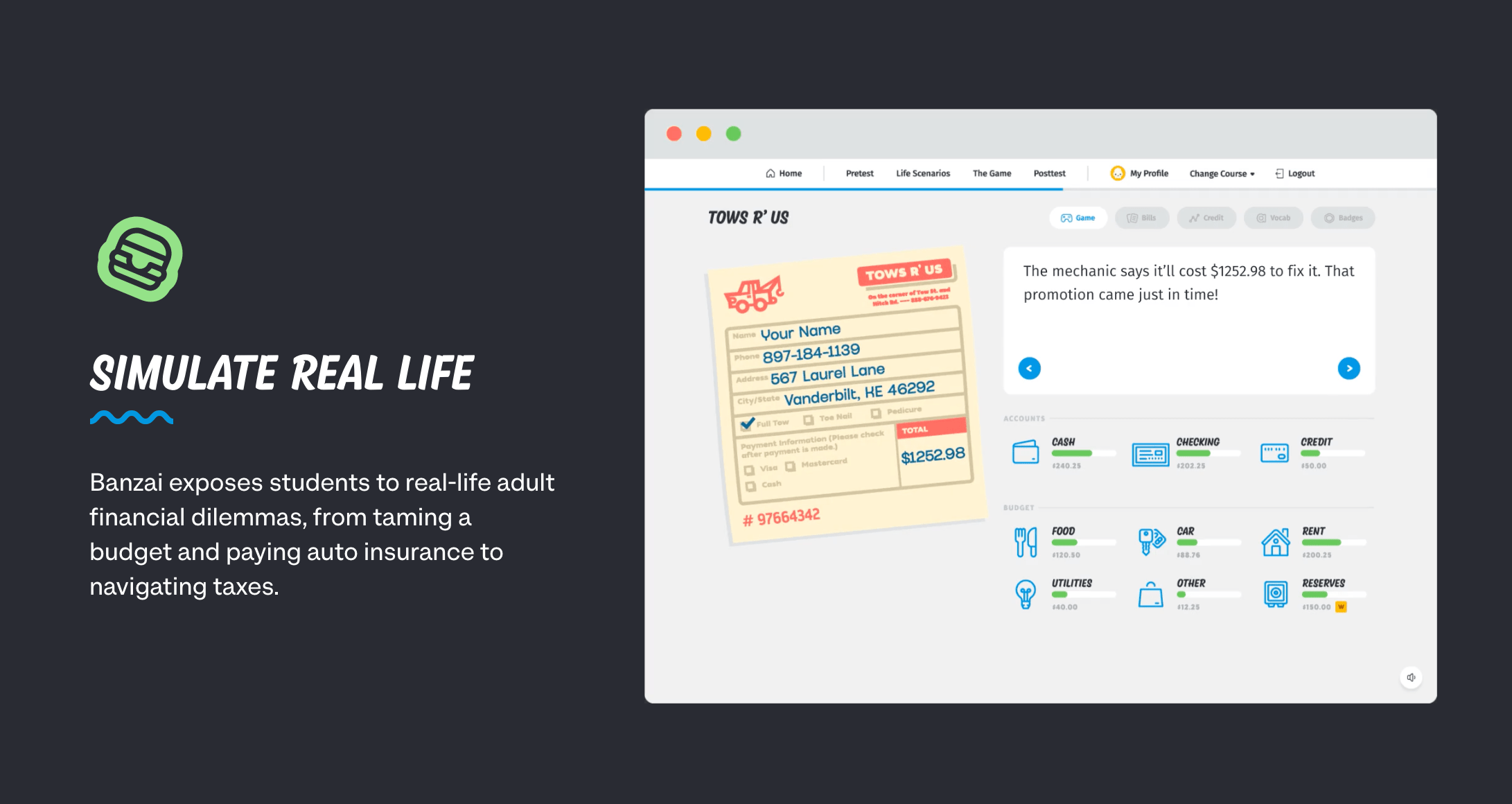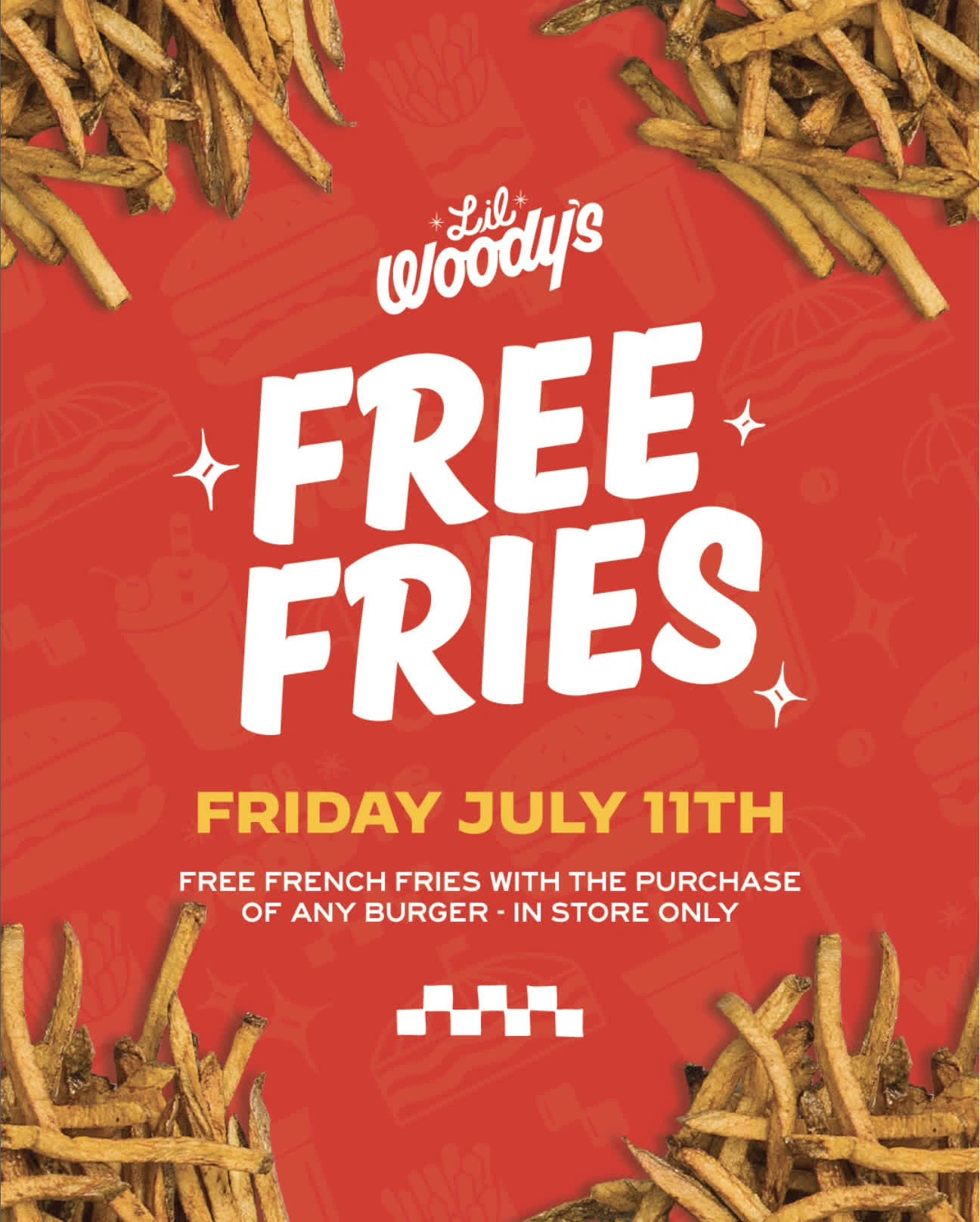
OpenType features
ss01
Alternate &
Q&A
frac
Fractions
1234/56789
Want to say something very loud, but also very friendly? One way you could do that is by yelling (in an easygoing, good-natured way). Another is to hire a plane guy to write it genially in the sky. But the best and most amiable way of all is using Kansas Casual. One thing that makes Kansas Casual loud is how it is in ALL CAPS! And of course it’s friendly because it’s based on sign painter stuff, and sign painters are the friendliest guys in the whole world! Like those sign painters, the letters of Kansas Casual are full of snappy old guy jokes and great technique. Get ready to say your loudest friendliest message yet.
Alternate &
Fractions